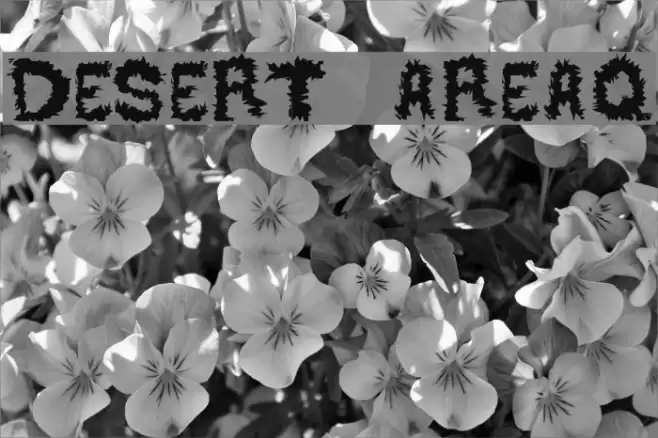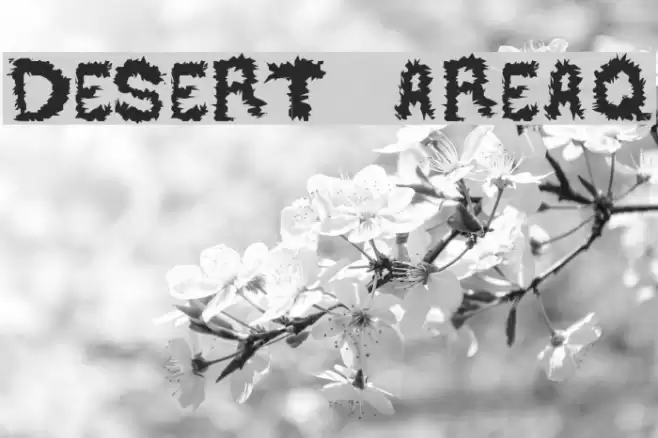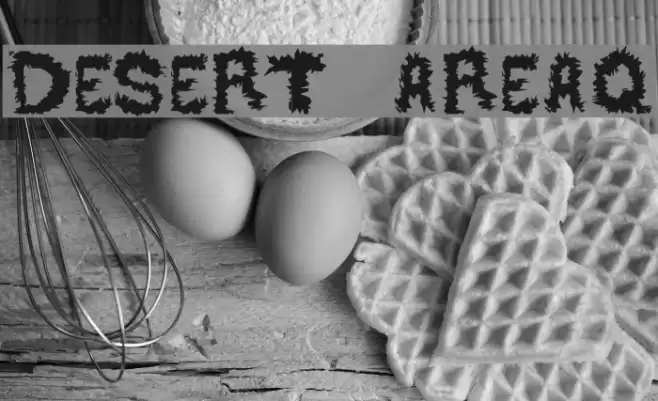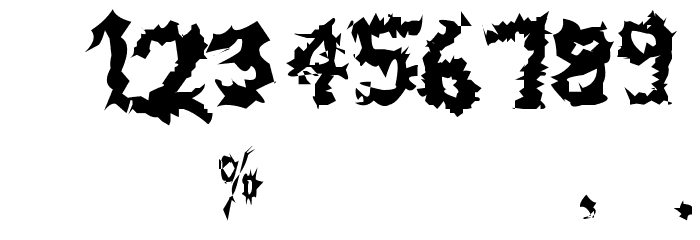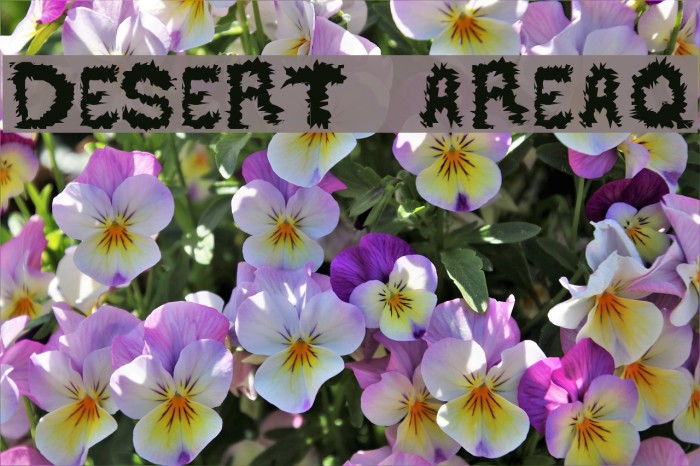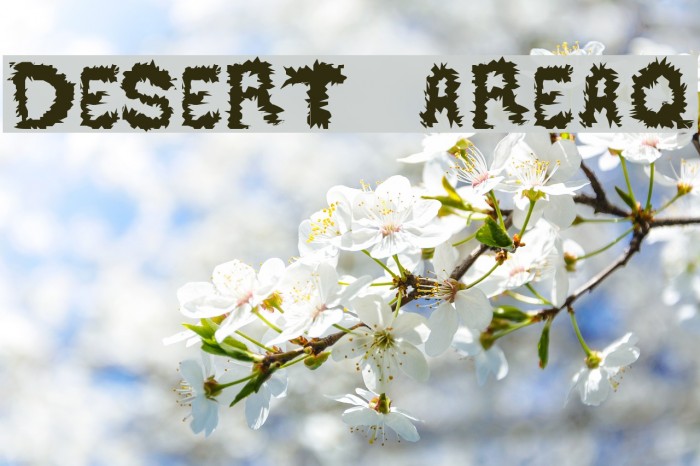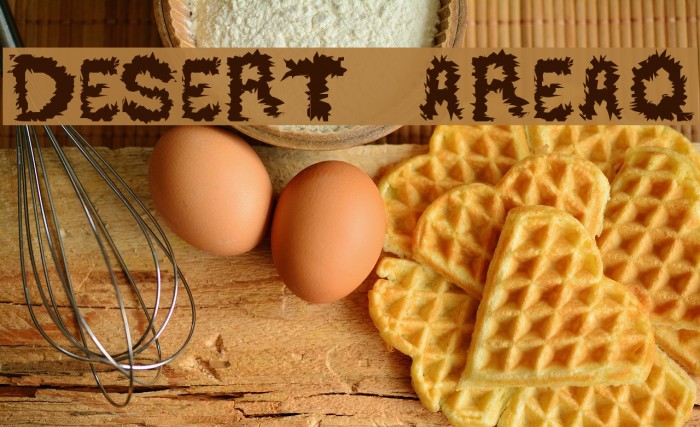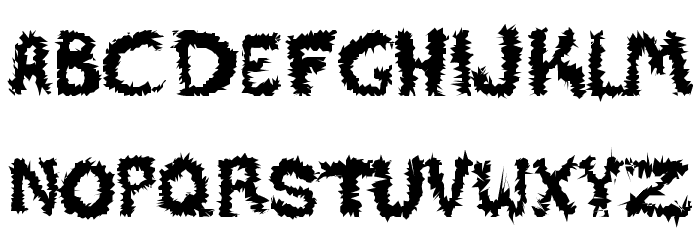
DESERT AREA-Q Font
DESERT AREA-Q Description
This font features a rugged, jagged design reminiscent of torn paper or sharp thorns. Each character is uniquely styled with irregular edges, creating a sense of chaos and energy. The uppercase and lowercase letters maintain a consistent height, while the numbers and special characters follow the same edgy theme. The font's bold appearance makes it stand out, ideal for projects that require a dramatic and eye-catching look. Its distinctive style is perfect for themes related to horror, adventure, or anything that demands a bold statement.
A jagged, bold font with irregular edges, perfect for dramatic themes from Distorted Eroded fonts.
- Proposed Projects: Ideal for horror movie posters, adventure-themed graphics, Halloween invitations, or any project needing a bold, edgy look.